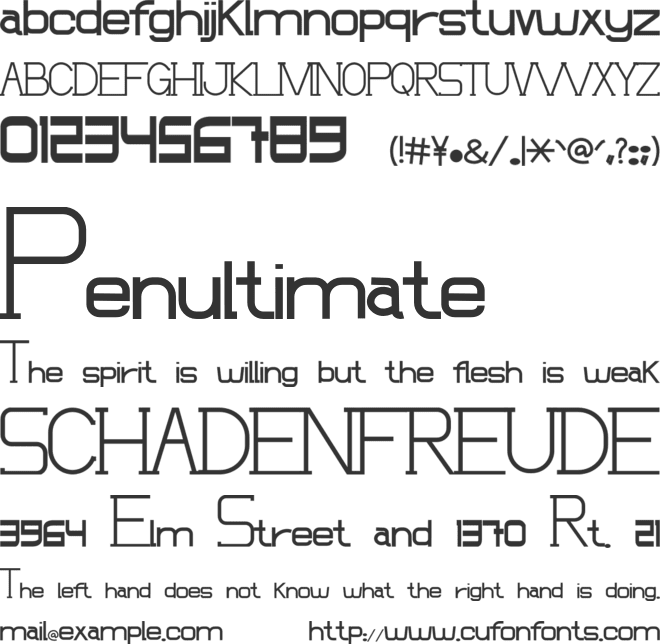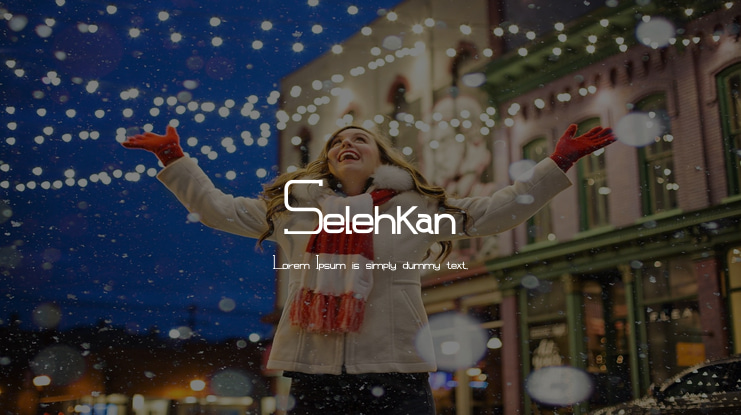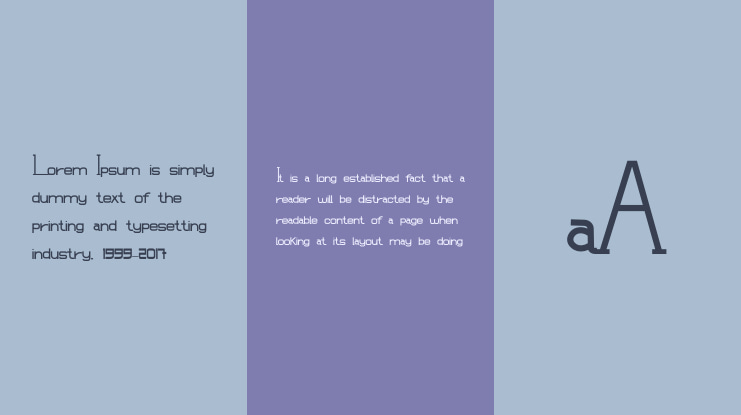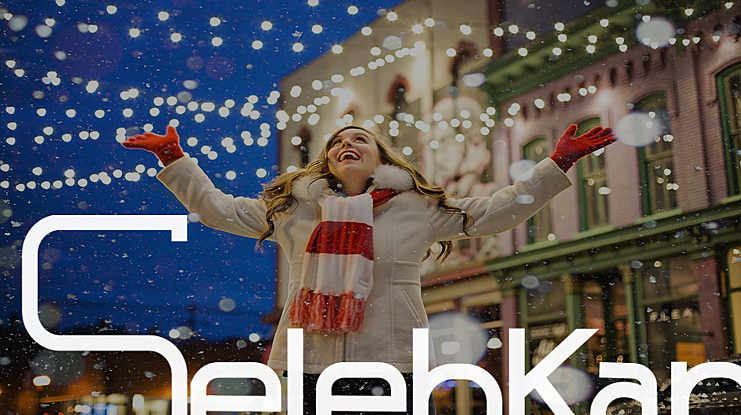
Selehkan Font
Selehkan elegant fashion font, inspired by the logos of popular magazines. Snub is great for headlines, logos, covers, posters, branding and other creative designs. Below you will find a font specimen for the Selt font. In this specimen of fonts you will get fantastic grades